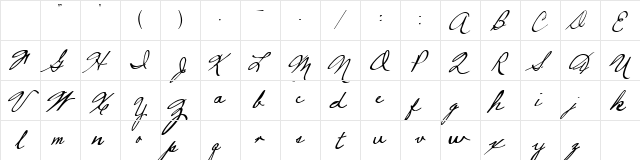
Ahoy Mother's Script 1
Design Context for Ahoy Mother's Script
Ahoy Mother's Script flows with the natural rhythm of handwritten lettering, making it ideal for designs that call for warmth and personal expression.
Font Pairing: Combine Ahoy Mother's Script with a simple geometric sans for maximum contrast - the tension between flowing curves and clean structure is a classic typographic pairing.
Pro Tip: Use Ahoy Mother's Script for short runs of text - names, titles, or taglines. Extended body copy in script faces tires the eye quickly.